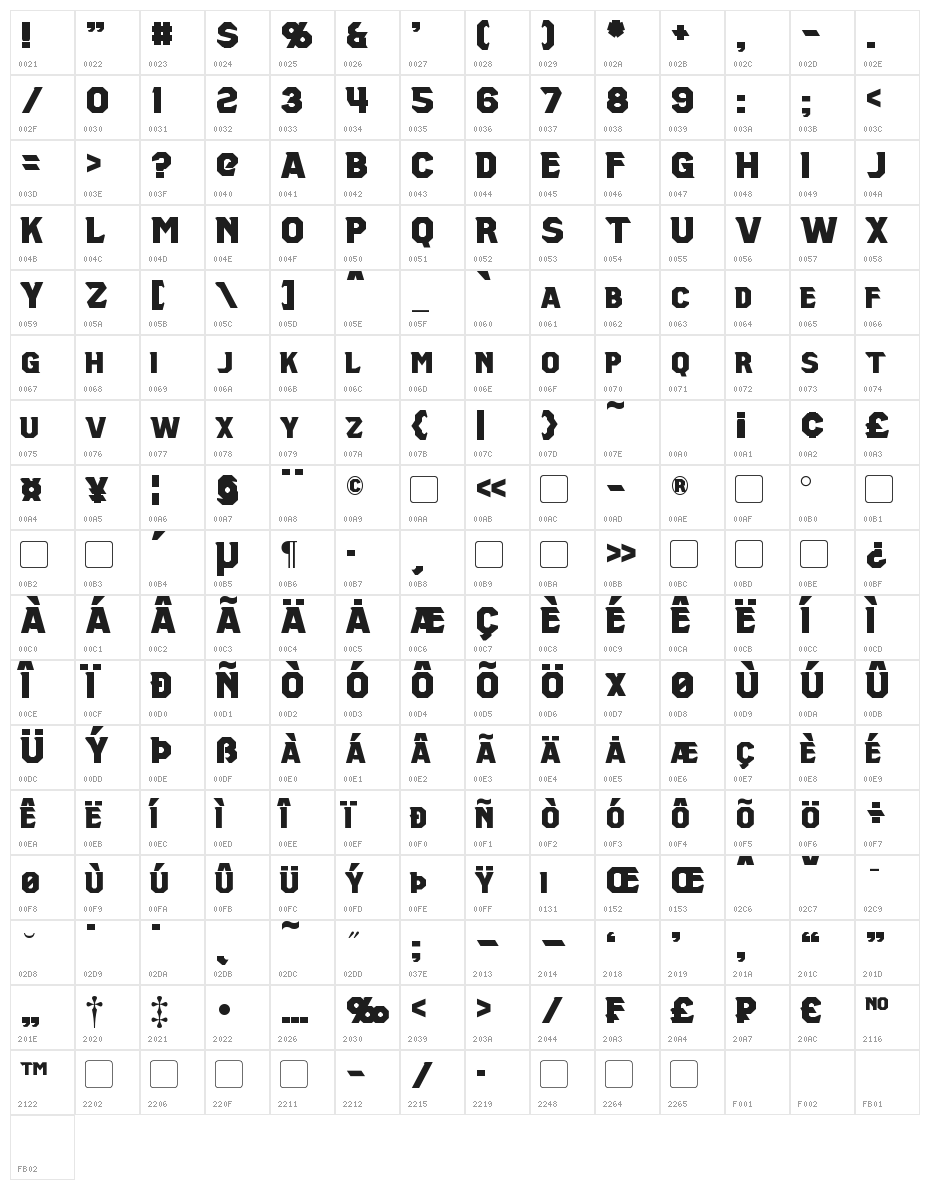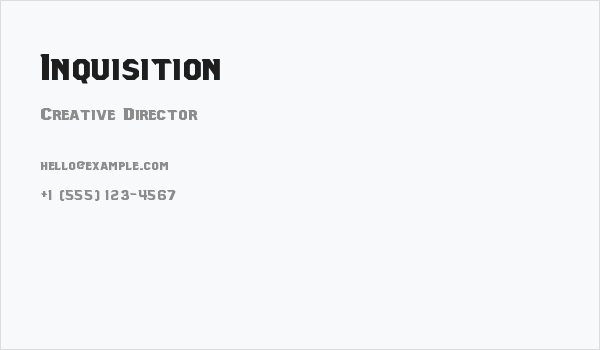
Inquisition Font
Inquisition Description
This font features a bold, geometric design with sharp, angular edges and a strong presence. The characters are uniformly thick, creating a sense of solidity and impact. Its style is reminiscent of industrial or military aesthetics, with a modern twist. The uppercase and lowercase letters maintain consistent proportions, while the numbers and special characters follow the same robust design. This font's distinct appearance makes it suitable for attention-grabbing headlines or branding that requires a powerful visual statement.
| Proposed Projects | Ideal for use in branding, posters, video game titles, or any project requiring a bold, industrial look. |